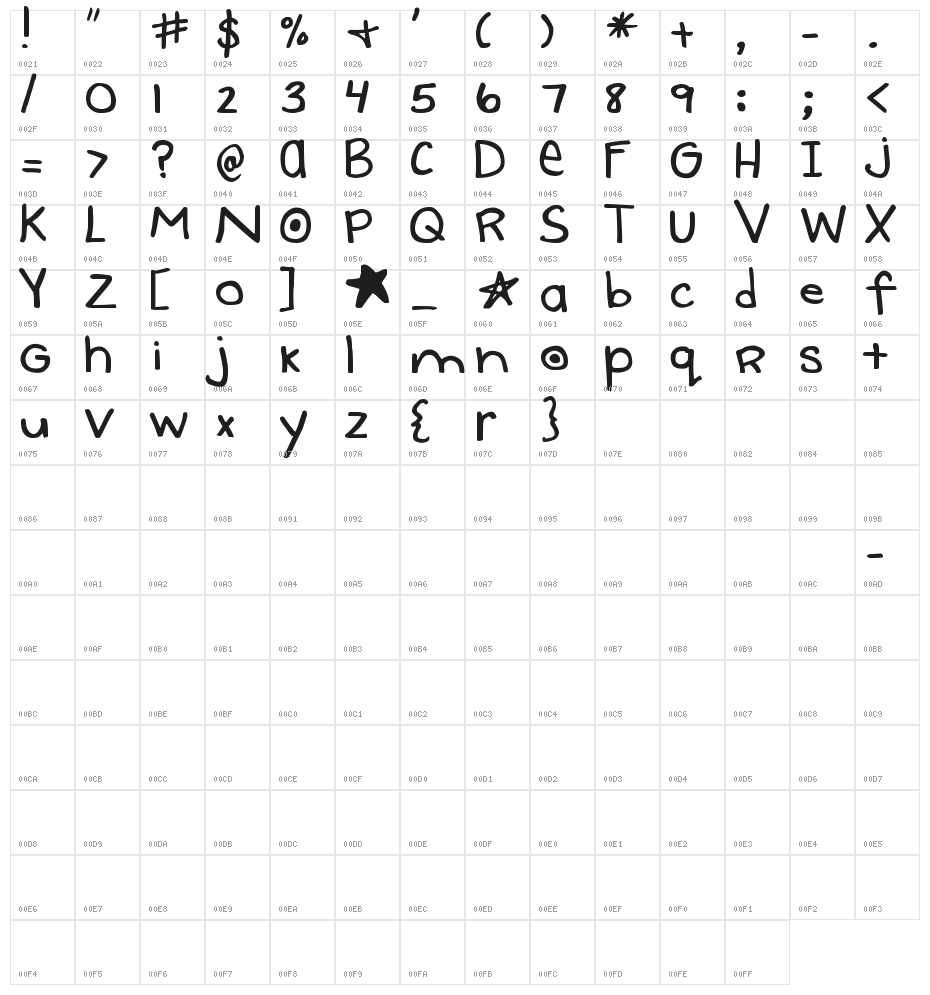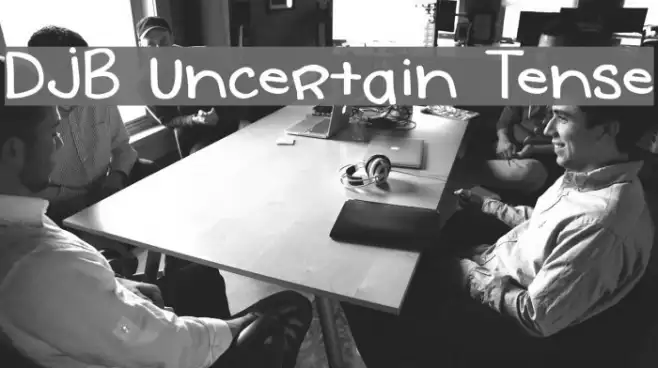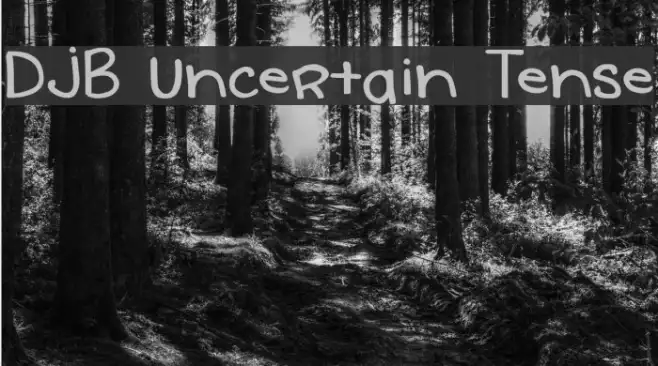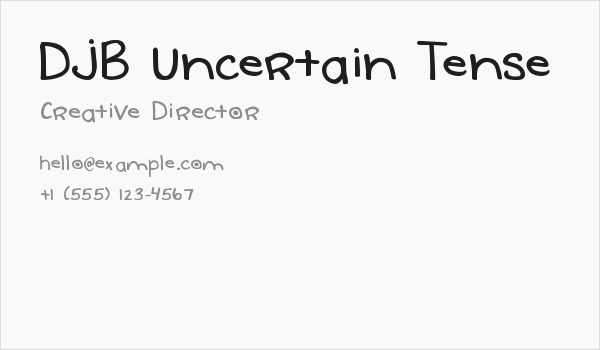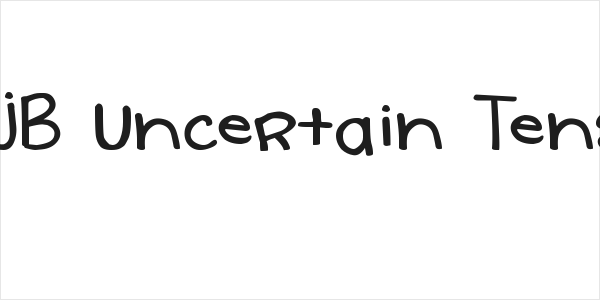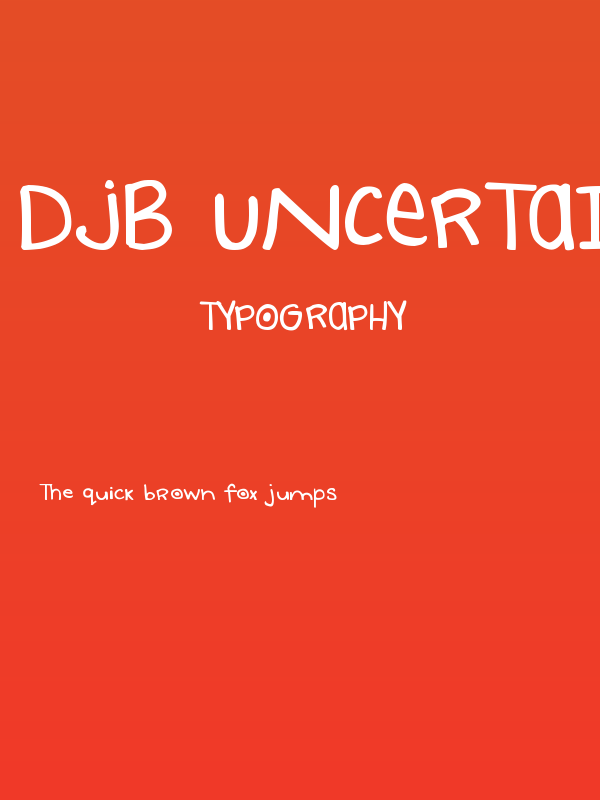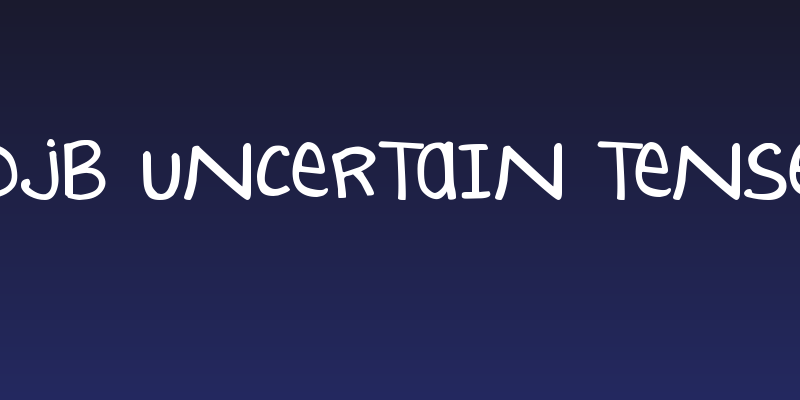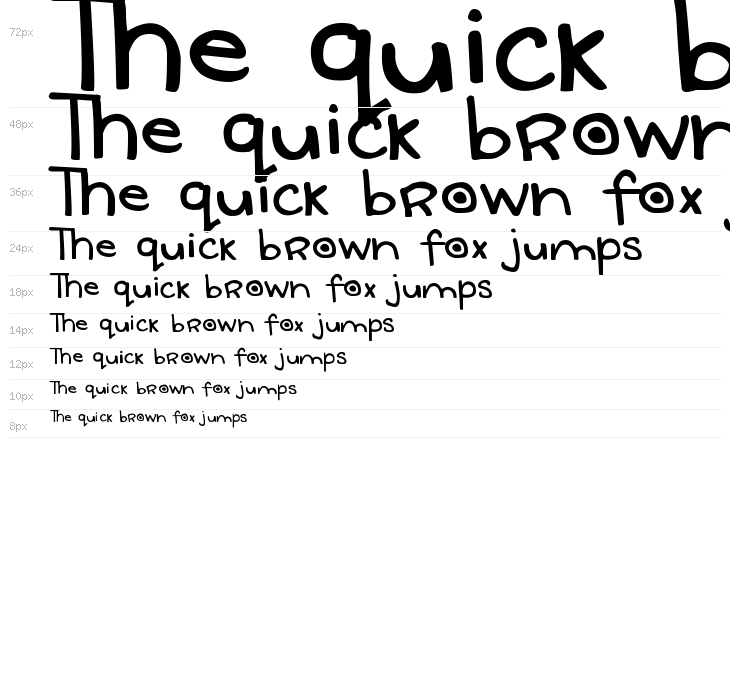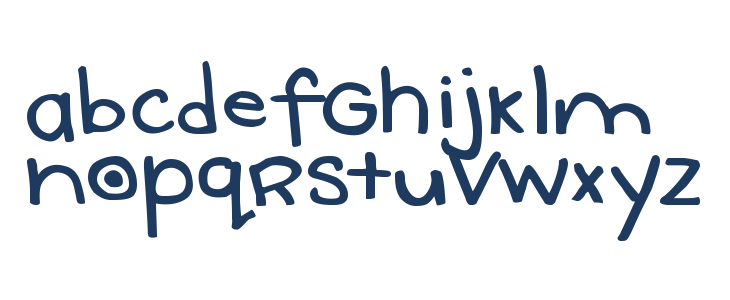
DJB Uncertain Tense Font
DJB Uncertain Tense Description
| Proposed Projects | Ideal for children's books, greeting cards, playful branding, and casual invitations. |